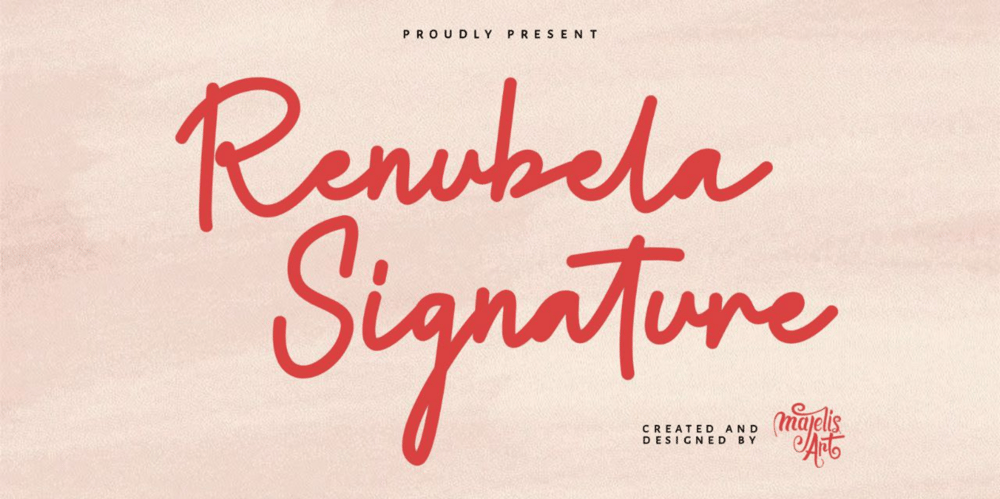
Renubela Signature Font Family was designed by Fikhry Mus Pratama and published by Majelis Art. Renubela Signature contains 1 styles and family package options. Renubela means happy even though they are far apart they still keep in touch with each other.Renubela is a font created using a bold marker with bold curves. And given a little hand carving that resembles human writing, a signature version.This font is perfect for use on cosmetic brands, web titles, food products, commercial posters, shopfront carvings, book covers, movie titles, and more…Available from fonts- Uppercase and lowercase – Numeral and Punctuation – Multilingual support – Ligature Keep working with our fonts.Thank you Don’t hesitate to contact us if you need anything. Contact person fmuspratama@gmail.com (Designer)majelislogo@gmail.com (Publisher)